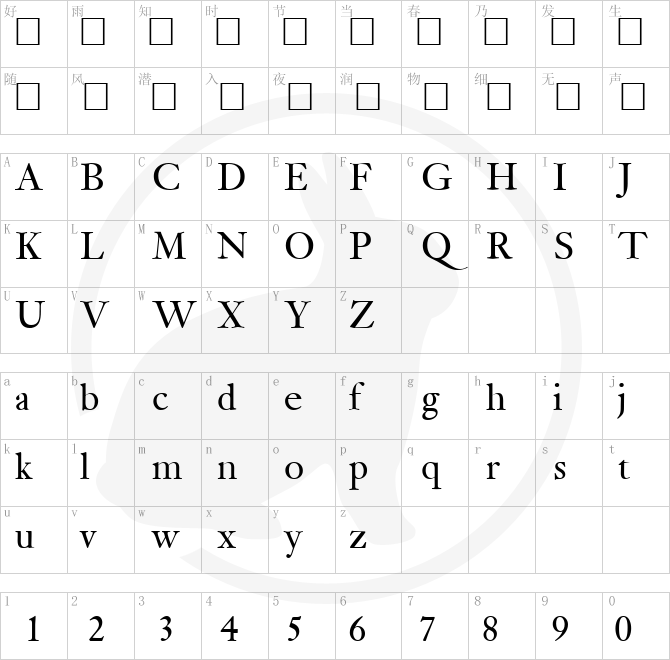
- Font Name:Jacobite
Jacobite-Regular.ttf is a very beautiful artistic font, Jacobite-Regular.ttf is widely used in the design and printing of various books and pictures,Jacobite-Regular.ttf has a strong visual impact,Jacobite-Regular.ttf is a commonly used font in newspapers, magazines and books, and is used in posters, e-commerce Poster design, store design, logo design, font design and other fields.Jacobite-Regular.